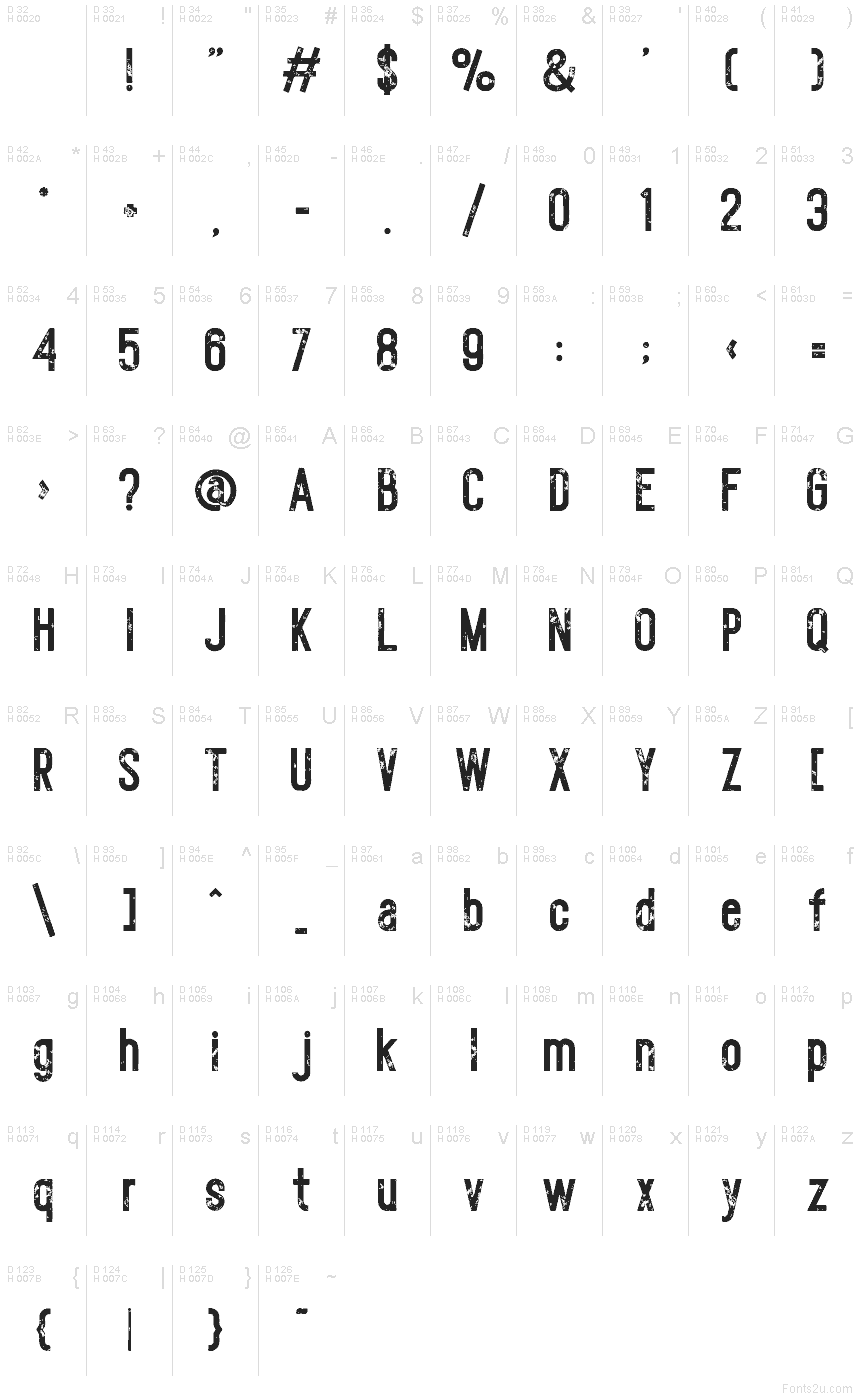
Rolever Texture Bold
Rolever Texture Bold font by PutraCetol Studio is a condensed display font with an eroded and distressed texture. The design achieves a rugged sans-serif style with a grunge vibe. Just like its width, the font has an equally greater height as well as bold characters which increase its presence and visibility.
This free display font works for vintage posters, banners, book titles, magazine covers, branding elements, advertisements, apparel designs, logos or logotypes. The urban appearance makes it fit for video intros and social media platforms.